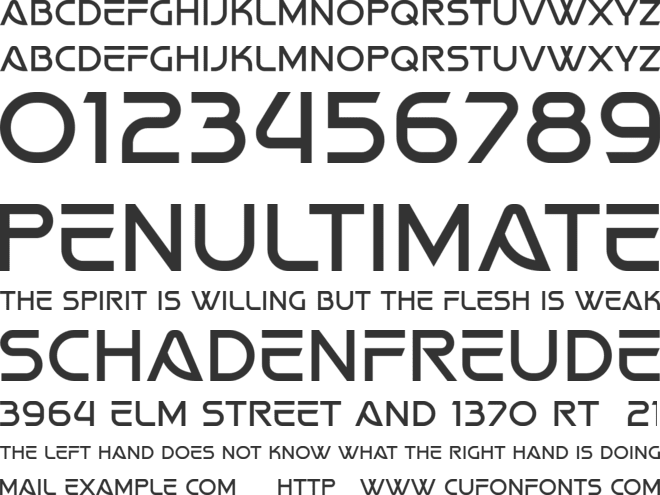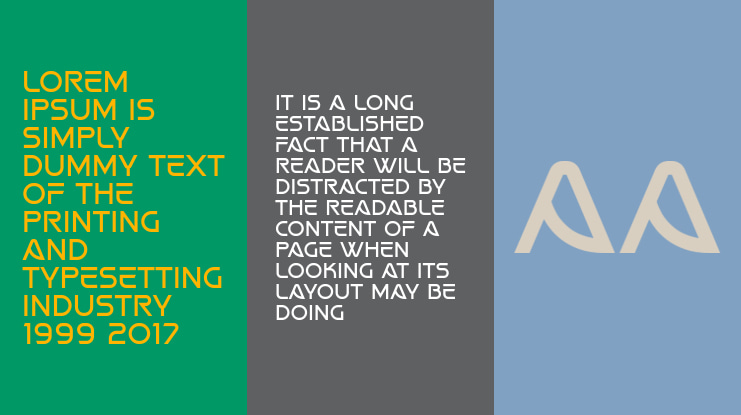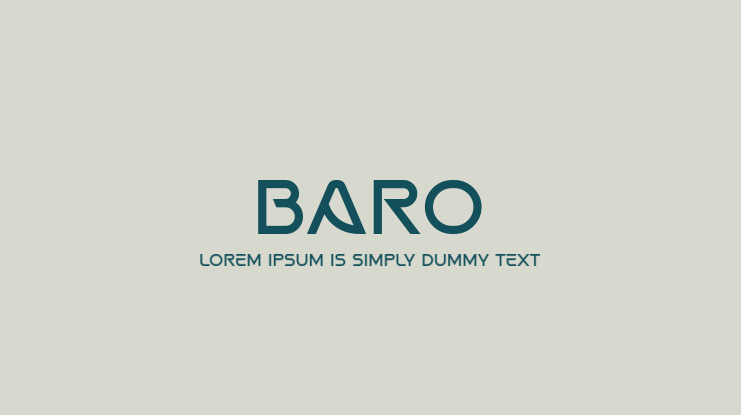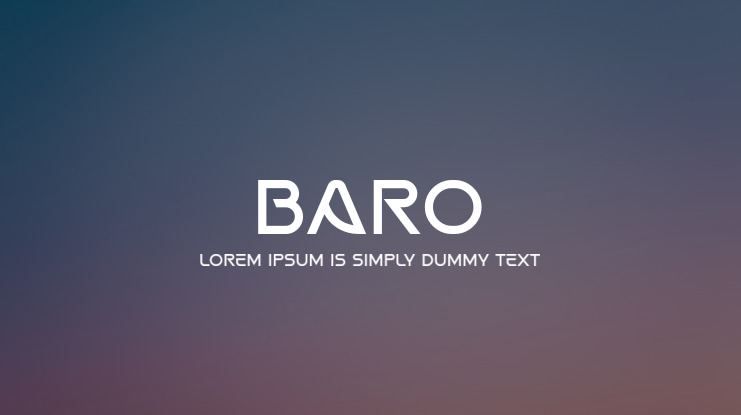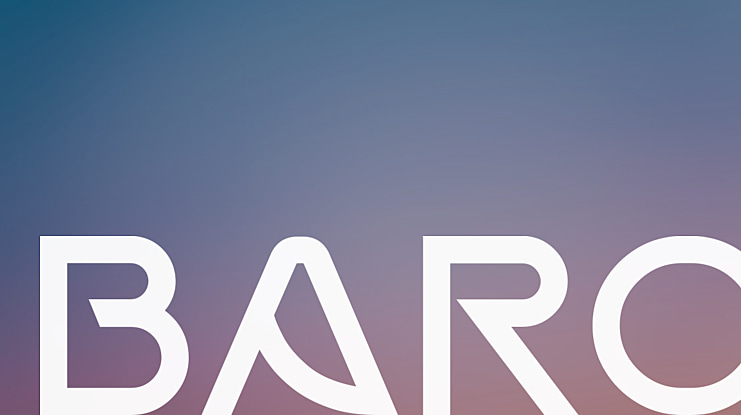
BARO Font
Baro is an avant-garde and visionary font that encapsulates elegant and simplistic design principles. Its unique, uncluttered contours and precise angles elicit a feeling of progress and contemporaneity.